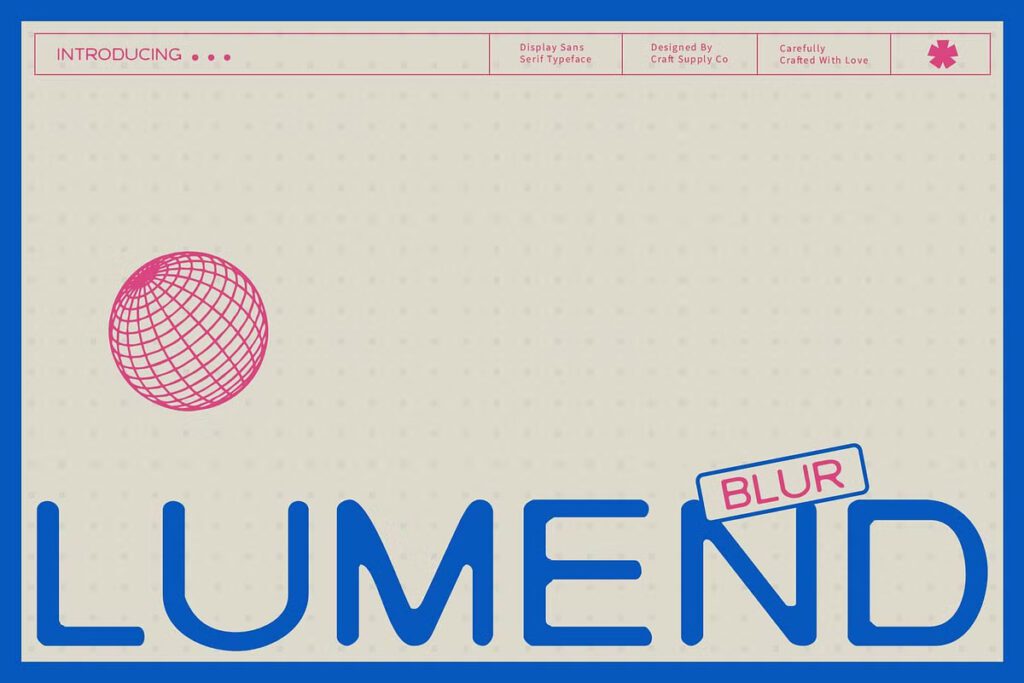
Elevate Your Design with the Sleek and Modern Lumend Blur Font
Lumend Blur is a contemporary sans-serif font that perfectly balances modern minimalism with a touch of refined elegance. Created by Craft Supply Co., this font is designed to meet the needs of professionals and creatives alike, offering versatility and sophistication for a wide range of design projects.
Why Lumend Blur is a Must-Have Font for Designers
1. Sleek and Modern Design Lumend Blur features a clean, geometric sans-serif design that exudes contemporary style. Its minimalist aesthetic ensures that your text looks polished and professional, whether used in digital media or print. The font’s simple lines and shapes create a modern, sophisticated look that is both timeless and versatile.
2. Subtle and Elegant Blur Effect What sets Lumend Blur apart from other sans-serif fonts is its subtle blur effect. This softens the sharp edges, adding an ethereal quality that enhances the font’s elegance. The blur effect is perfectly balanced—not too overpowering, but just enough to give your designs a unique and refined touch.
3. Perfect for Digital and Print Applications Lumend Blur is designed to excel in both digital and print environments. Its modern aesthetic ensures that it looks great on screens and in physical media. Whether you’re designing a website, creating marketing materials, or crafting a logo, Lumend Blur offers the functional clarity and polished appearance needed for professional results.
4. Versatile Use Across Various Projects This font is incredibly versatile, making it suitable for a wide range of design projects. From branding and logos to posters, social media graphics, and editorial designs, Lumend Blur provides a contemporary and elegant look that enhances any project.
5. Comprehensive Character Set Lumend Blur comes with uppercase and lowercase characters, numerals, punctuation, and multilingual support, ensuring that you have all the tools you need for your creative endeavors. The font is PUA encoded, meaning you can access all glyphs and swashes easily without any specialized software.
6. Available in Regular and Italic To offer even more design flexibility, Lumend Blur is available in both Regular and Italic styles. This allows you to mix and match styles within your projects, adding depth and emphasis where needed.
Lumend Blur by Craft Supply Co. is an essential addition to any designer’s toolkit. Its sleek, modern design combined with a subtle blur effect offers a perfect blend of functionality and elegance. Whether you’re working on a digital project, print materials, or brand identity, Lumend Blur provides the polished, sophisticated look that today’s designs demand.